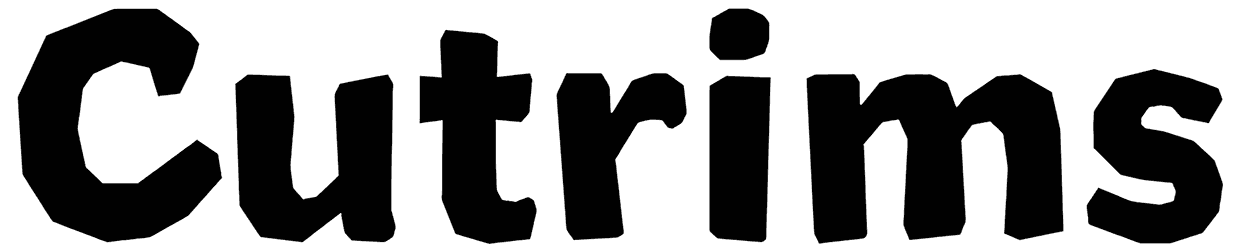
Cutrims Font
Beyond all your imagination, you can design timeless and popular graphic content with the help of a magical polygon font such as Cutrims that offers two distinctive styles and insanely widens your selection range in the middle of bringing your creative ideas like movie posters, video game banners, the user interface of applications, magazines, or headlines to the real life.
This sticker font can give you a hand at adding a sense of youth, freshness, innovation, and dreaminess to all projects.